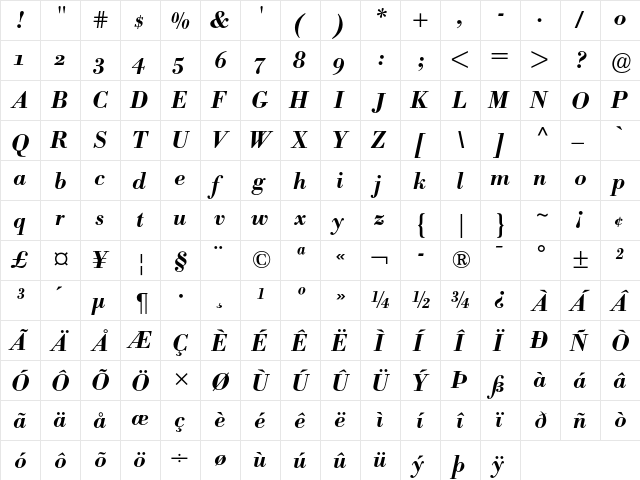
Bodoni BE Medium Italic OsF
Design Context for Bodoni BE Typeface
Bodoni BE is a composed and adaptable typeface that performs quietly and consistently across a wide range of design contexts. Its italic angle brings a sense of urgency and motion to the letterforms.
Pro Tip: Use Bodoni BE for emphasis, pull quotes, and subheadings where its slanted energy can add rhythm to the layout.